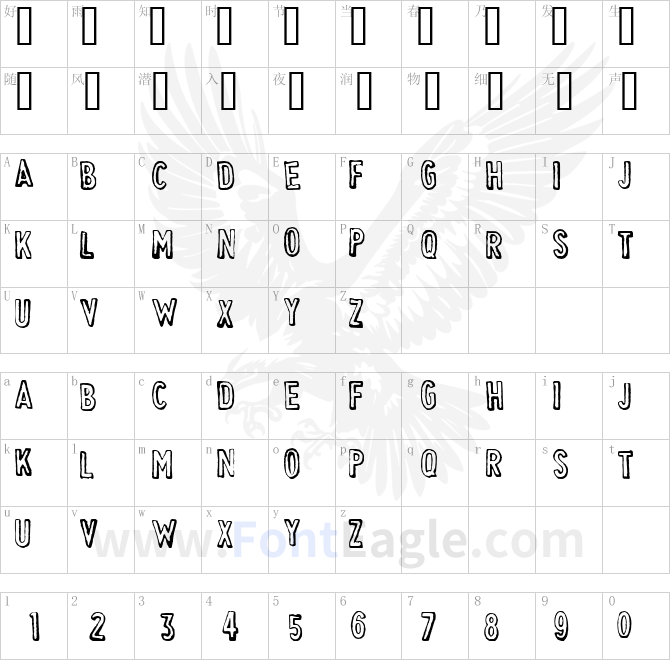
- Font Copyright:CHEAPSKATE OUTLINE font v1.6 ©1998, 2002, 2004 Harold Lohner • HLohner@aol.com • www.haroldsfonts.com Based on a cheap set of rubber stamps.